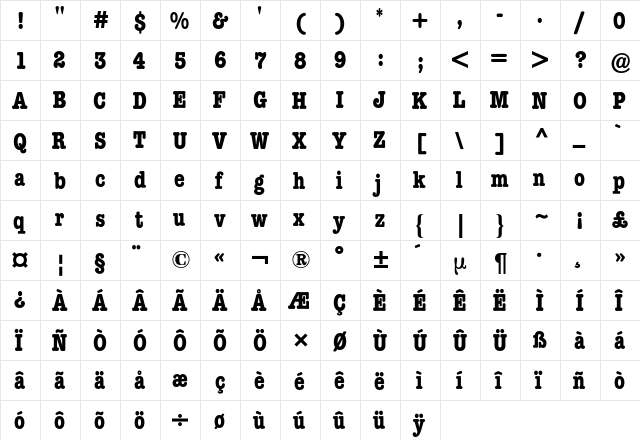
AmericanTypewriterCondensedBQ Regular
Design Context for AmericanTypewriterCondensedBQ Typeface
AmericanTypewriterCondensedBQ brings the precise, column-aligned rhythm of monospaced typography to designs that value technical clarity and systematic order.
Pro Tip: Use AmericanTypewriterCondensedBQ with slightly increased line-height for extended reading — fixed-width spacing can feel dense in longer passages without extra breathing room.